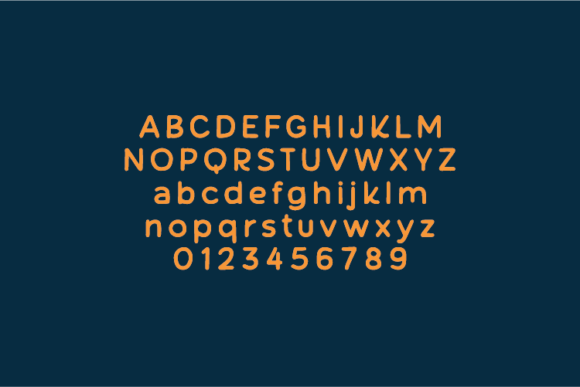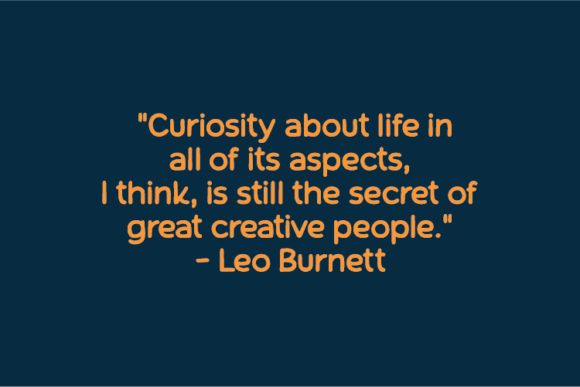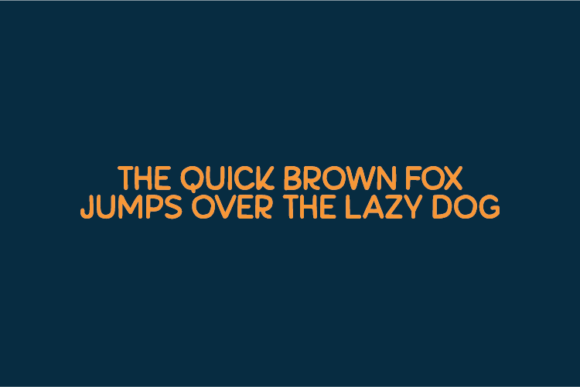
Unlocking the Timeless Charm of the Anniversary Font
Have you ever stumbled upon a quote or phrase that perfectly captures the essence of a special moment in your life? Maybe it was a romantic dinner, a milestone birthday, or a wedding anniversary – whatever it was, it left an indelible mark on your heart. As designers, we’re always on the lookout for the perfect font to match the emotion and tone of these moments.
Enter the Anniversary Font, a natural sans serif font that exudes a sense of simplicity and elegance. Crafted with care, this font is designed to be used as-is, without any modifications to its nodes – a refreshing change from the usual font tweaking. The result is a unique and captivating font that’s perfect for quotes, notes, tees, and any product design.
For designers, the Anniversary Font is a valuable addition to their toolkit. Its timeless charm and versatility make it an excellent choice for projects that require a touch of sophistication and emotion.
Anniversary Font Key Features
- Unique Characteristic: The Anniversary Font features a unique, hand-drawn style with intricate details, making it ideal for special occasions and romantic designs.
Anniversary Font Review
As a designer, I was excited to dive into the Anniversary Font and see what it had to offer. Overall, I’d say it’s a solid choice for anyone looking for a elegant, classic font.
- The font’s elegant curves and lines create a sophisticated look that’s perfect for formal or high-end projects.
- The Anniversary Font is highly legible, making it a great choice for body text or headings.
- The font’s classic feel makes it versatile and suitable for a wide range of industries and designs.
- The font may feel a bit too formal or old-fashioned for some modern designs or projects.
- The Anniversary Font lacks the uniqueness and personality of some other fonts, which may make it harder to stand out in a crowded design market.
- The font’s limited character set and language support may be a drawback for designers working on international projects.
In conclusion, the Anniversary Font is a reliable and timeless choice for designers looking for a classic, elegant font. While it may not be the most exciting or innovative option, it’s a solid choice for a wide range of projects and designs.
Tips for Getting the Most Out of the Anniversary Font
Use the Anniversary Font to add a touch of elegance and sophistication to your designs. Pair it with simple, clean backgrounds to let the text take center stage.
Experiment with different font sizes and colors to create a unique and eye-catching look.
The Anniversary Font is perfect for:
Wedding invitations and announcements
Anniversary cards and gifts
Special occasion graphics and designs
Alternatives to Anniversary Font for Designers
The Anniversary Font is a classic serif font, but there are many other beautiful fonts that designers can use for their projects. Here are a few alternatives: